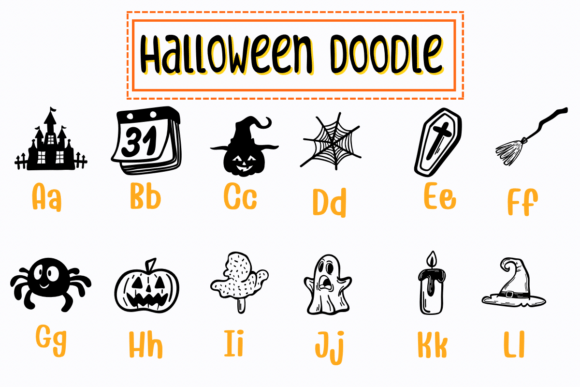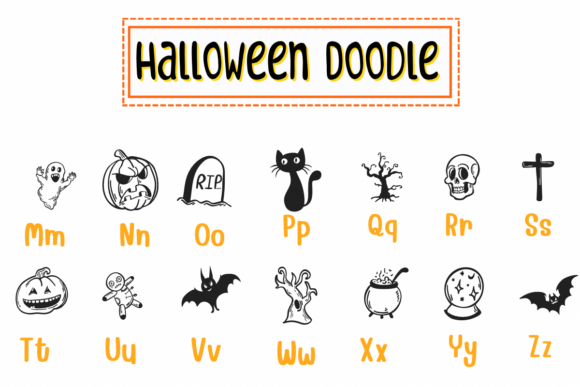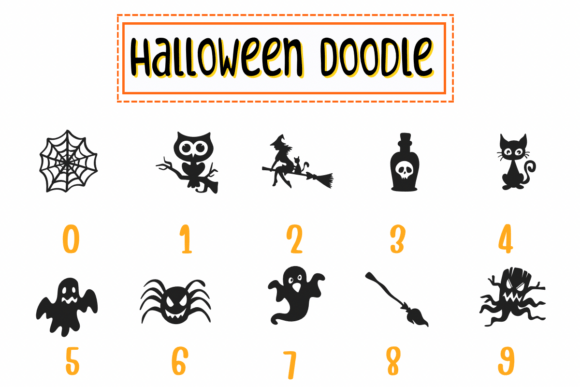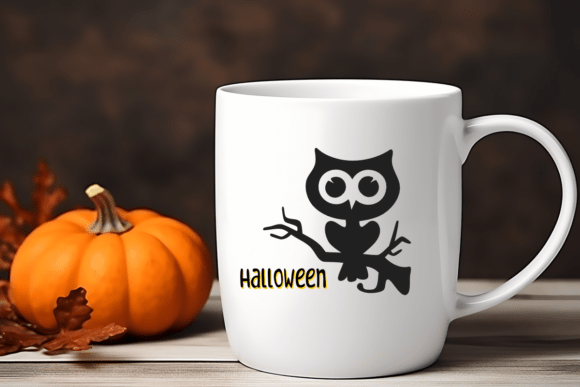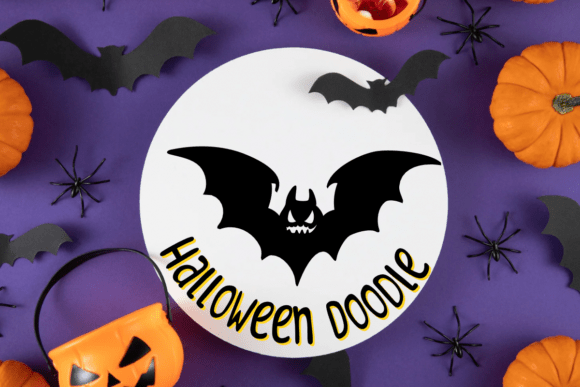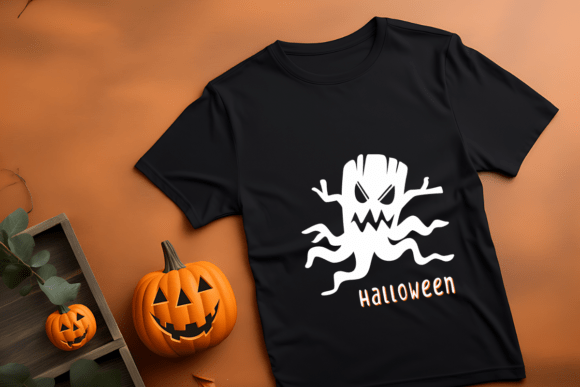
Unleash Spooky Creativity with Halloween Doodle Font
Halloween is just around the corner, and what better way to get into the spooky spirit than with a font that’s as eerie as it is adorable? Introducing the Halloween Doodle Font, a delightful collection of hand-drawn icons that will add a touch of frightful fun to your designs. In this article, we’ll dive into the details of this fantastic font, exploring its features, uses, and benefits for designers and crafters alike.
What is Halloween Doodle Font?
The Halloween Doodle Font is a spooky-cute dingbats font that features a wide range of hand-drawn icons, including ghosts, spiders, haunted houses, bats, and many more. This charming font is perfect for adding a personal touch to your Halloween-themed designs, from posters and flyers to treat bags and DIY decorations.
Key Features of Halloween Doodle Font
- Hand-drawn icons: Each icon in the Halloween Doodle Font is carefully crafted by hand, giving the font a unique and playful feel.
- Wide range of symbols: The font includes a vast array of Halloween-themed icons, from creepy creatures to spooky scenery.
- Dingbats font: The Halloween Doodle Font is a dingbats font, making it easy to use and incorporate into your designs.
- Perfect for Halloween designs: Whether you’re creating posters, flyers, or social media graphics, this font is sure to add a touch of Halloween magic to your work.
Uses for Halloween Doodle Font
The Halloween Doodle Font is incredibly versatile, making it perfect for a wide range of design projects, including:
- Halloween posters: Create eye-catching posters for Halloween parties, haunted houses, or spooky events.
- Treat bags: Add a personal touch to treat bags and candy wrappers with adorable Halloween icons.
- Party flyers: Design festive flyers for Halloween parties, complete with spooky-cute graphics.
- DIY decorations: Use the Halloween Doodle Font to create custom signs, banners, and decorations for your Halloween celebrations.
The Halloween Doodle Font offers a range of benefits for designers and crafters, including:
- Customizable: The Halloween Doodle Font can be used in a variety of design software, allowing you to customize and edit the icons to suit your needs.
- Time-saving: With a vast array of pre-made icons, the Halloween Doodle Font saves you time and effort in your design work.
- Unique and creative: The hand-drawn icons in the font add a touch of personality and whimsy to your designs, setting them apart from more generic fonts.
Tips and Tricks for Using Halloween Doodle Font
To get the most out of the Halloween Doodle Font, try the following tips and tricks:
- Mix and match icons: Combine different icons to create unique and eye-catching designs.
- Experiment with colors: Try out different color schemes and combinations to add depth and interest to your designs.
- Add textures and patterns: Incorporate textures and patterns to give your designs a more organic and handmade feel.
The Halloween Doodle Font is a fantastic resource for designers and crafters looking to add a touch of spooky fun to their Halloween designs. With its hand-drawn icons, wide range of symbols, and ease of use, this font is perfect for creating a variety of Halloween-themed projects. Whether you’re a seasoned designer or a crafting novice, the Halloween Doodle Font is sure to inspire your creativity and help you create some spook-tacular designs.